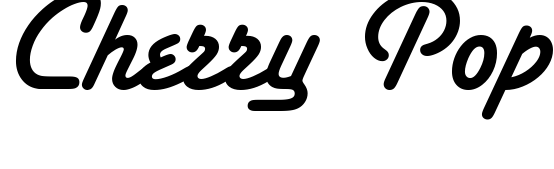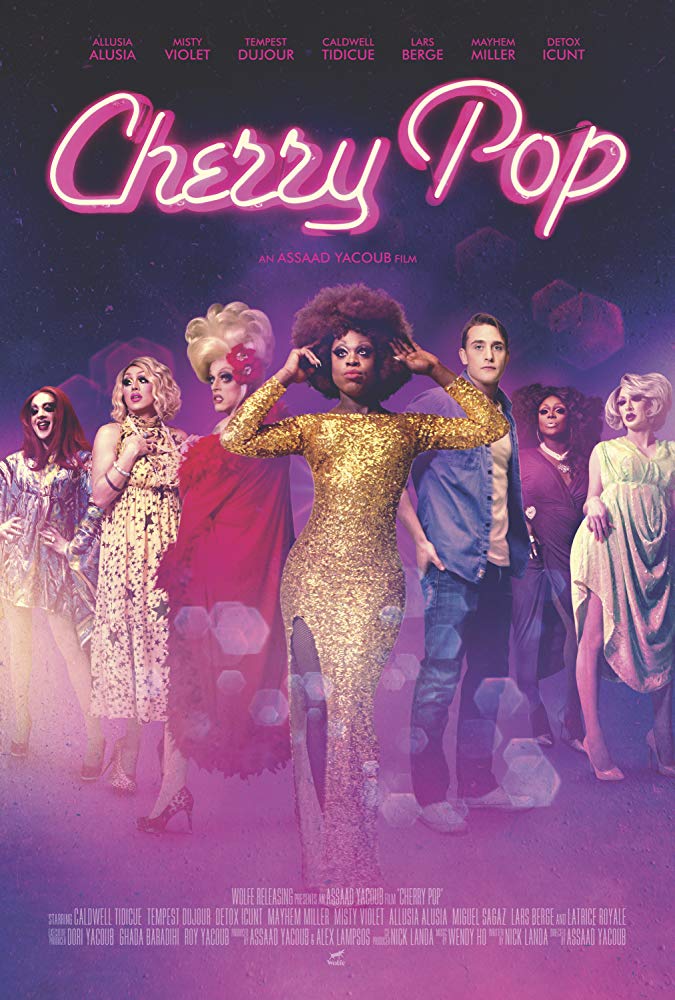
Cherry Pop Font
ComedyCherry Pop is a 2017 drag queen comedy film that follows the chaos that ensues at a failing drag club when a new queen arrives and disrupts the established hierarchy.
The film ''Cherry Pop'' title on the poster features Santa Fe, designed by British designer David Quay in 1983. The Santa Fe font is unique with its script letters and gives a flowing, cheerful look due to its rounded corners and elegant forms.